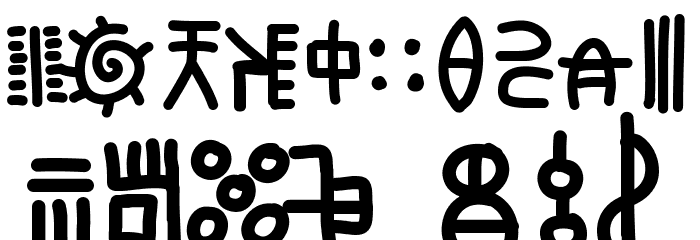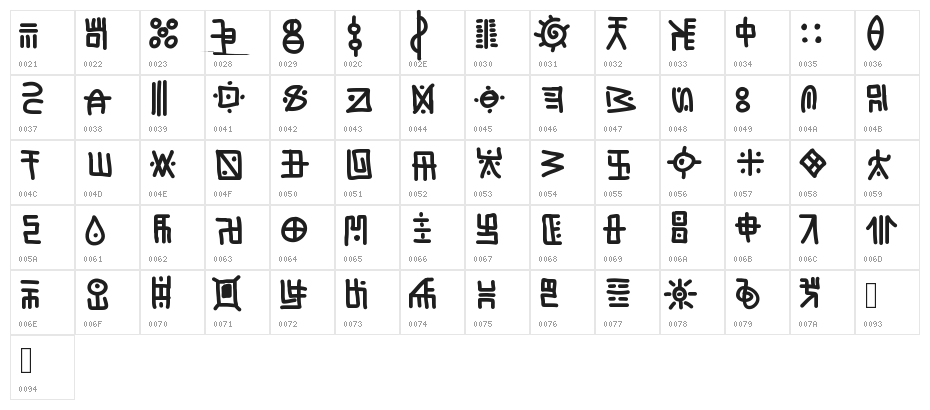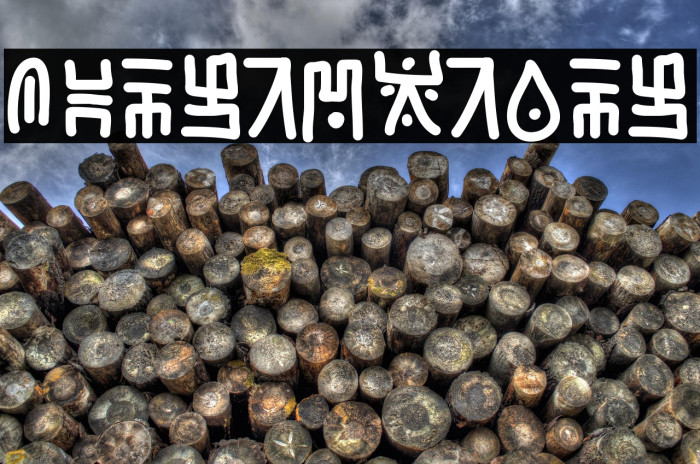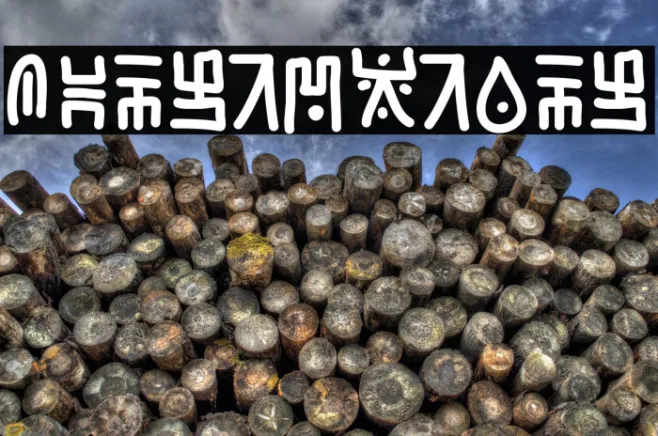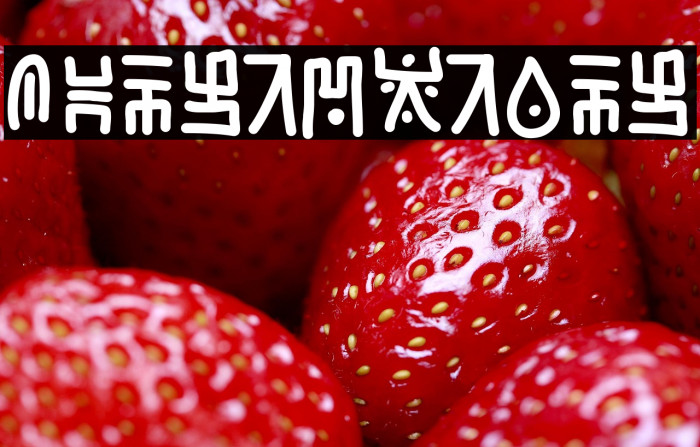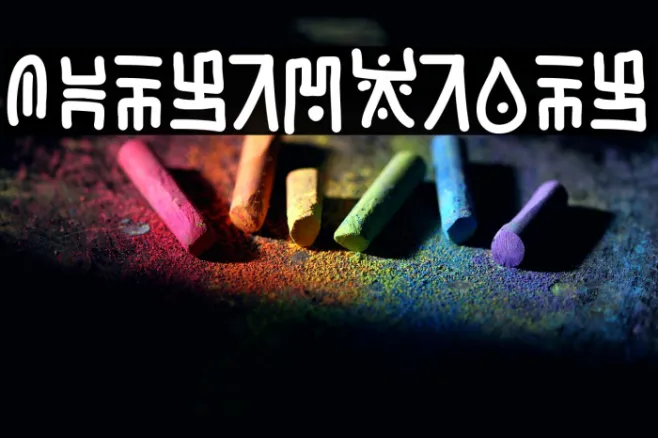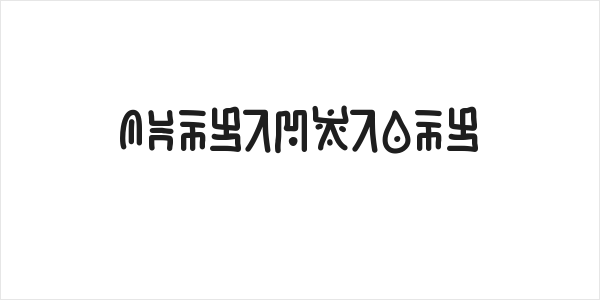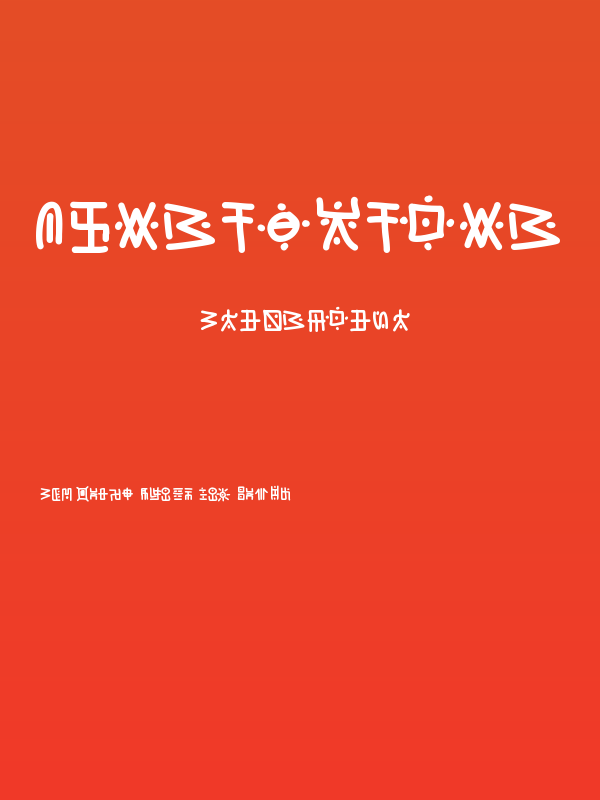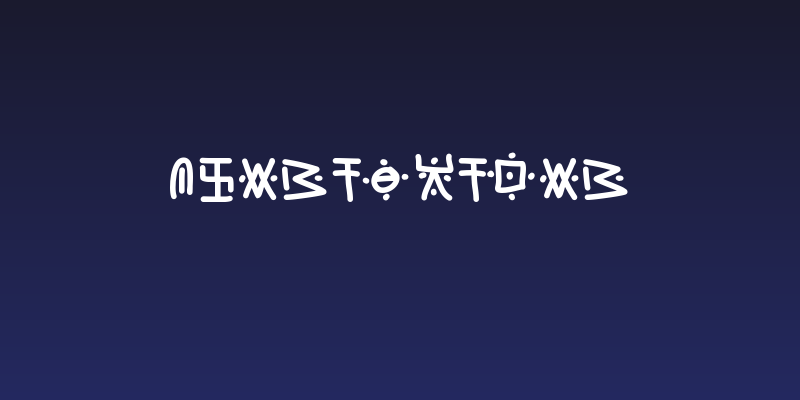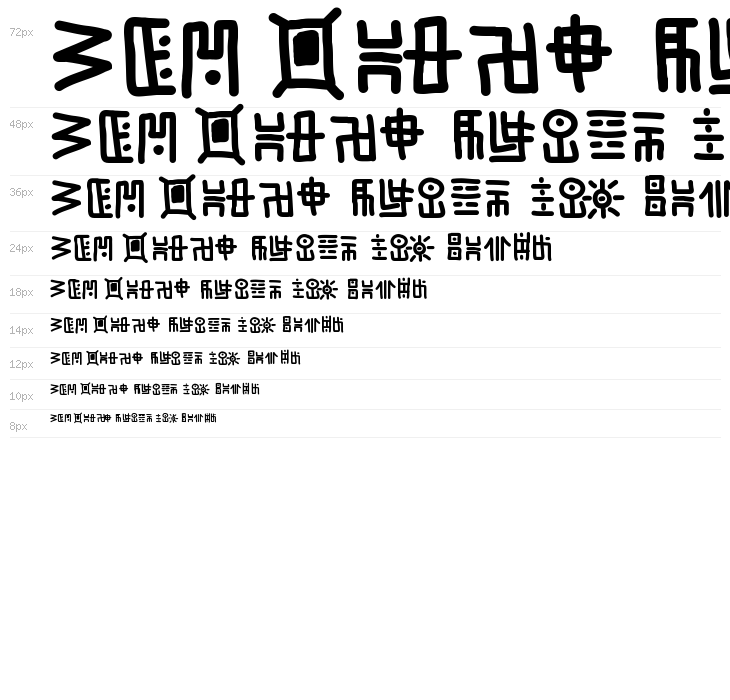
JungleSlang Font
JungleSlang Description
This font features a highly decorative and abstract style, reminiscent of ancient symbols or tribal art. Each character is uniquely crafted with intricate details, often incorporating geometric shapes and lines. The overall appearance is bold and striking, with a playful yet mysterious vibe. The characters are evenly spaced, maintaining a consistent visual rhythm across the text. This font is not suitable for body text due to its complexity but excels in creating a strong visual impact.
| Use Case | Logos, Posters, Artistic Designs |
| Proposed Projects | Ideal for artistic projects, branding for creative industries, or themed event posters. |